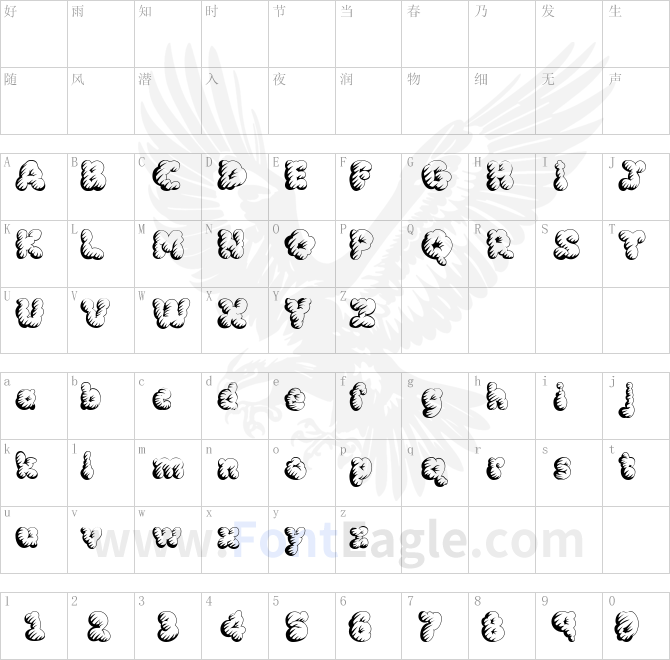
McKloud-Storm is a great font, widely used in graphic design, single-page menu design, poster design and other fields, and is deeply loved by designers.McKloud-Storm download.